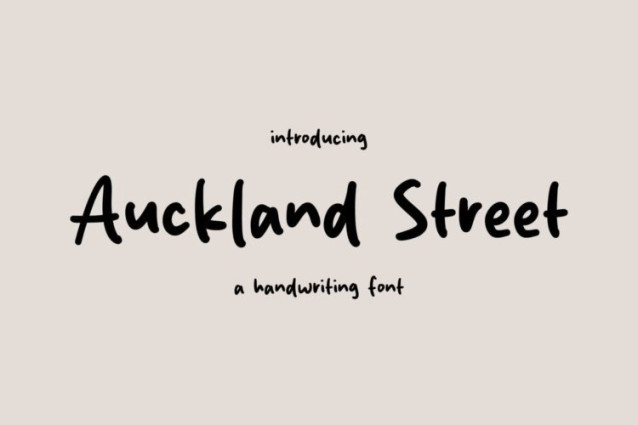
Auckland Street Font
Auckland Street Font is a simple and friendly handwritten font. Its natural and unique style makes it incredibly fitting to a large pool of designs. The only limit is your imagination!